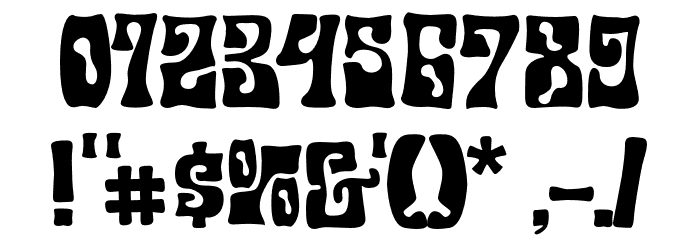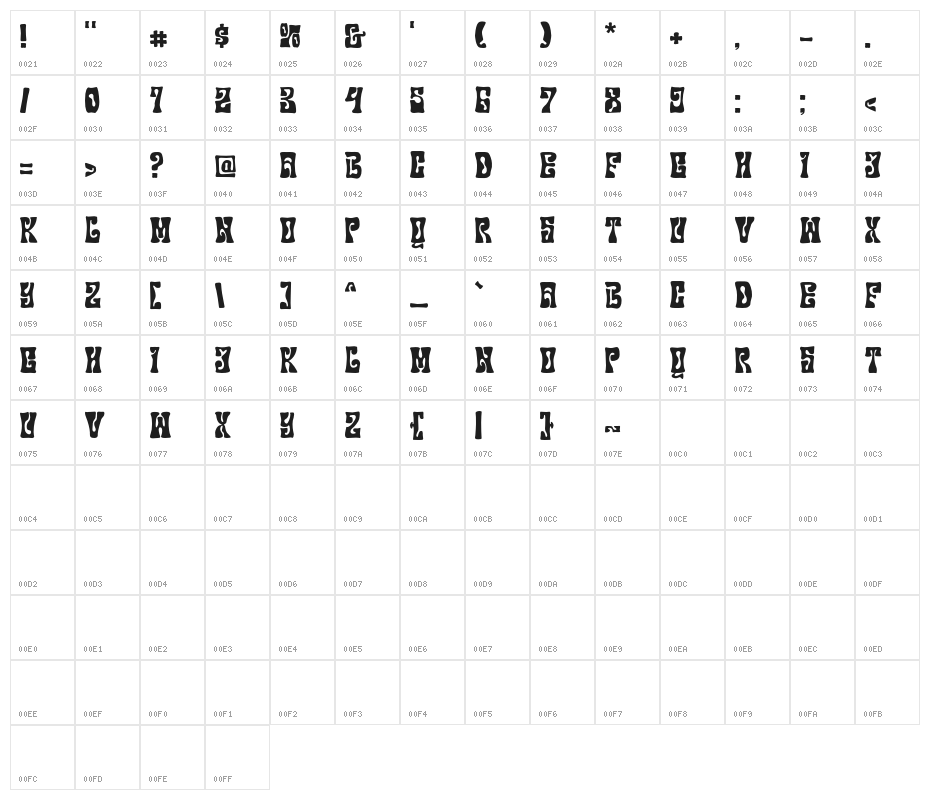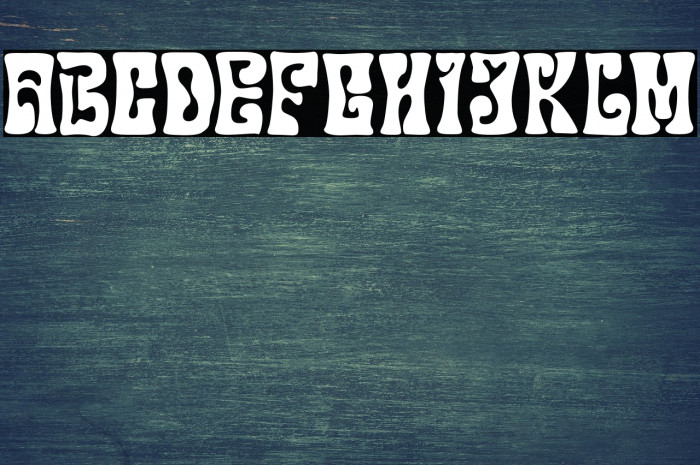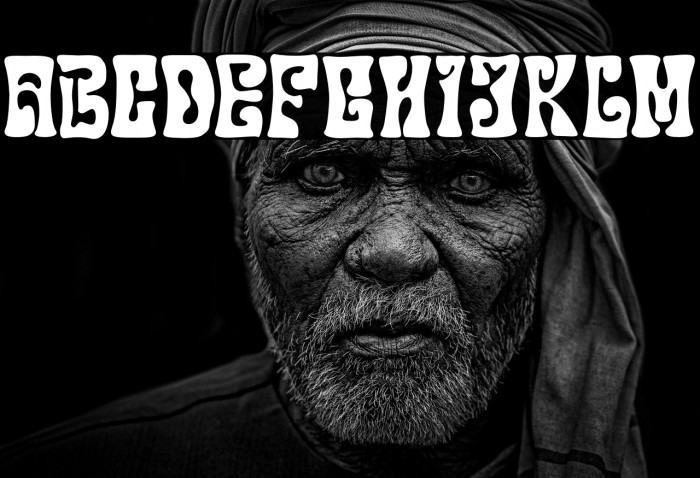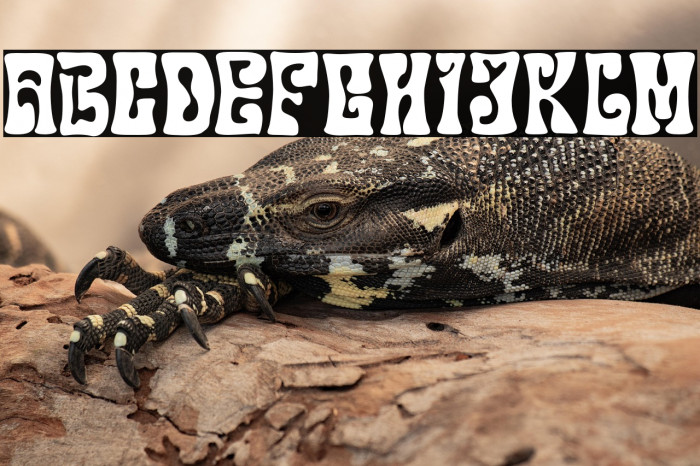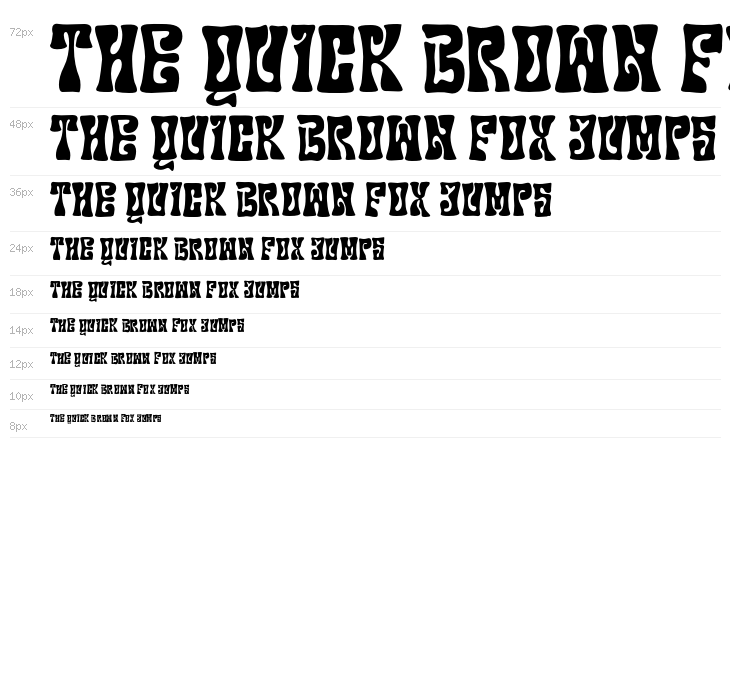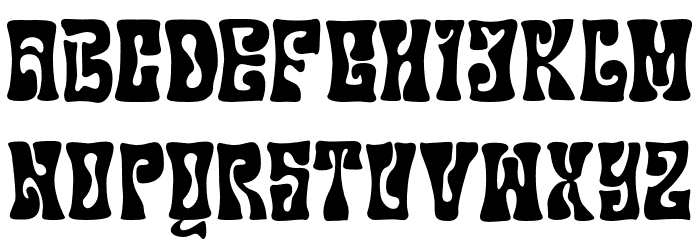
RogenaDisplay Font
RogenaDisplay Description
This font features a bold and playful design with a distinctly retro vibe. The characters are heavily stylized with thick strokes and exaggerated curves, creating a sense of movement and dynamism. The letters have a unique, almost psychedelic appearance, reminiscent of 1960s and 1970s design aesthetics. The font's boldness and decorative elements make it stand out, making it ideal for attention-grabbing headlines or artistic projects. The characters are tightly spaced, enhancing the compact and impactful look. The font's high contrast between thick and thin strokes adds to its visual interest and readability.
Overall StyleVintage
Proposed ProjectsIdeal for retro-themed posters, album covers, event flyers, and branding that seeks a vintage or artistic flair.